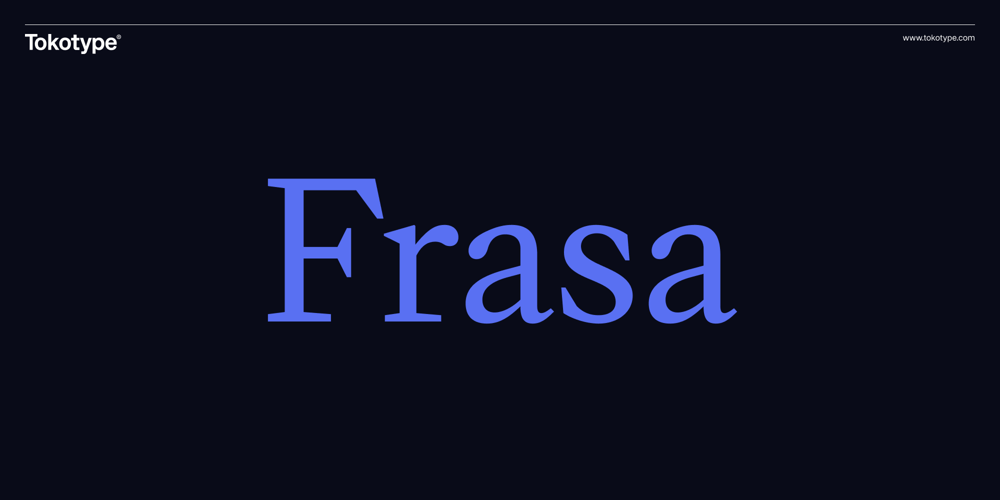
Frasa Font Family was designed by Gumpita Rahayu and published by Tokotype. Frasa contains 12 styles and family package options. Frasa is a contemporary serif family with characteristics that arise from the charms of Caslon and a touch of transitional style; the design offers distinctive proportions to serve long-running small text and the sturdiness of its own form to help as a headline font. Frasa shows that the family is shaped by the traditions of its ancestors through small details that show the personality of the typeface, such as pointed ball terminals and strong shoulders.The italic weights have their own beauty, which is created to humanize the form based on a stylized and natural cursive style with the aim of emphasizing the text’s essential elements. The addition of small caps, old-style figures, ligatures, etc. to this type family satisfies conventional typographic requirements. Frasa typefaces can eventually lead to the use of powerful design tools to create editorial and casual design styles.